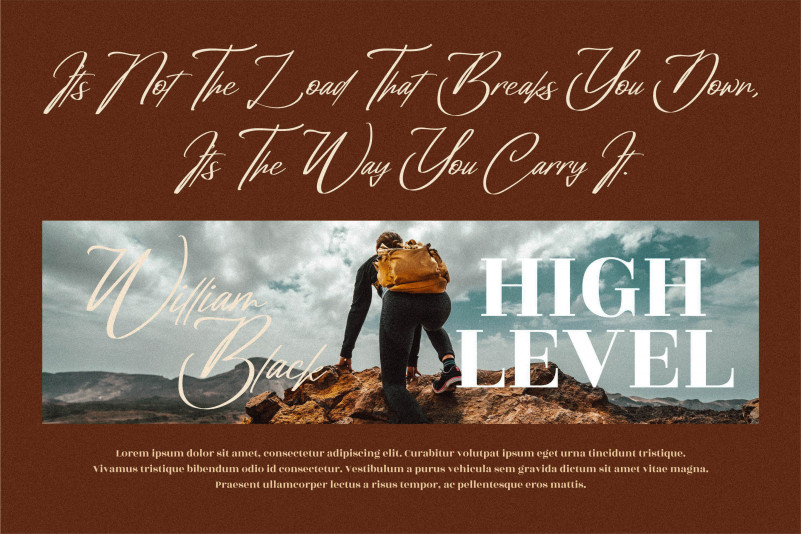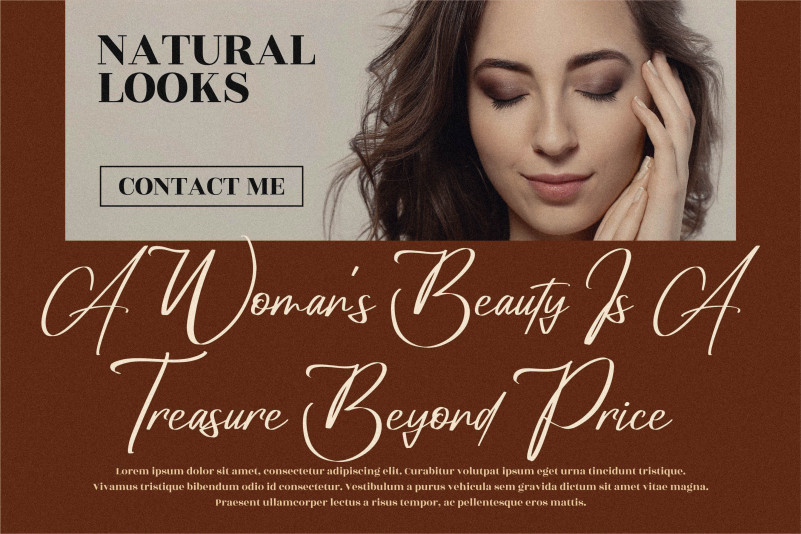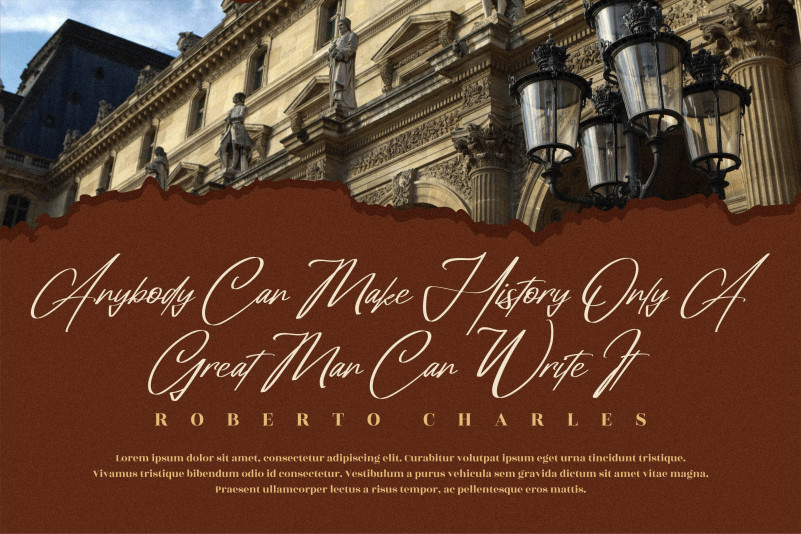
Amorillan Orgendam Font
Amorillan Orgendam Script Font
This is a thin lettered, delicate and beautiful script font. This font is PUA encoded which means you can access all of the glyphs and swashes with ease! Fall in love with its fashionable style and use it to create spectacular designs!